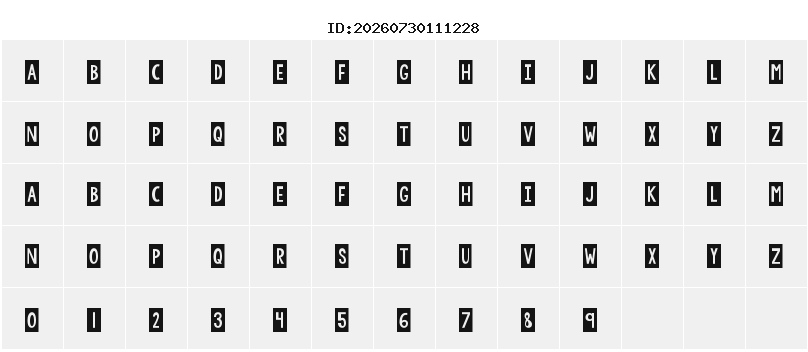
KG Defying Gravity Bounce Preview
• Font Name: KG Defying Gravity Bounce
• Full Font Name: KG Defying Gravity Bounce
• Designer: Kimberly Geswein
About KG Defying Gravity Bounce.ttf
KG Defying Gravity Bounce.ttf is a modern, elegant sans-serif font designed for ultimate readability and visual harmony. Perfect for branding, headlines, web design, and print materials.